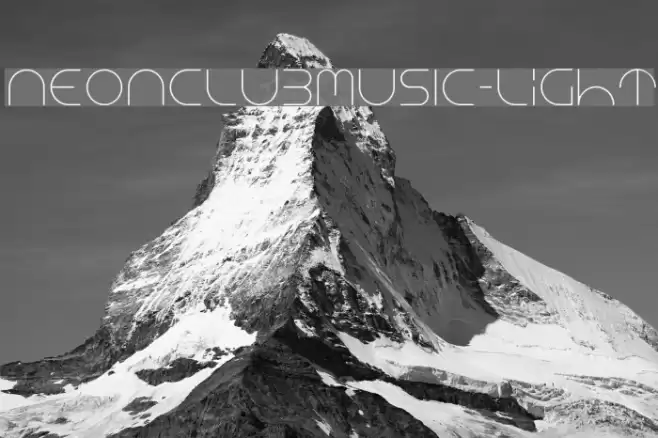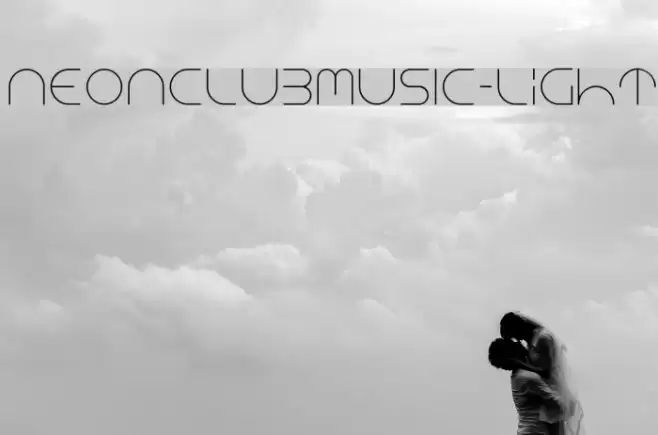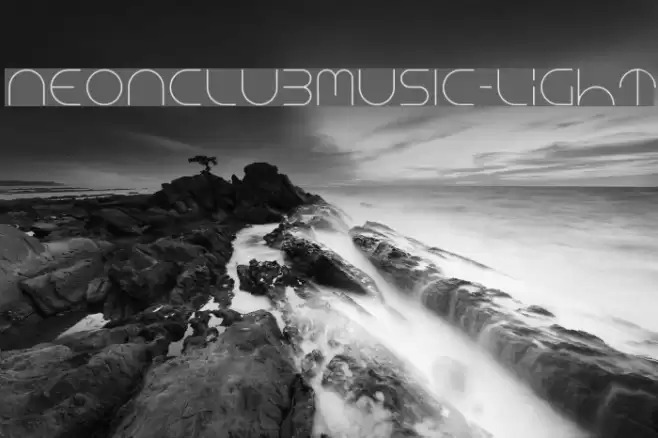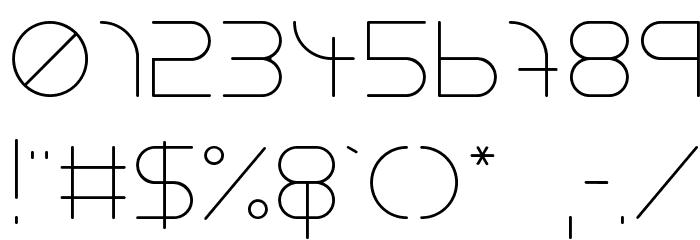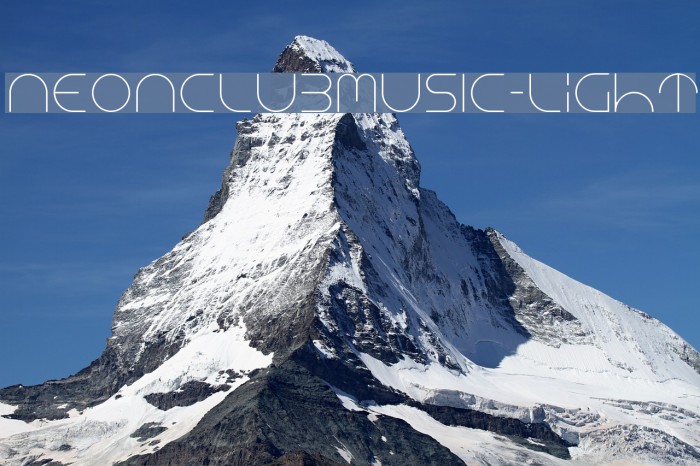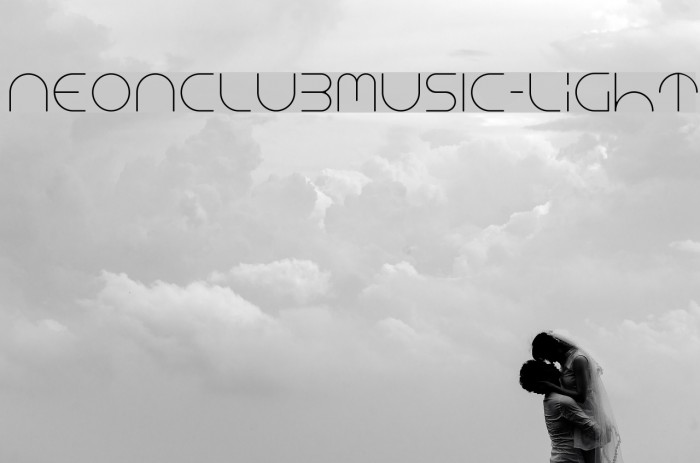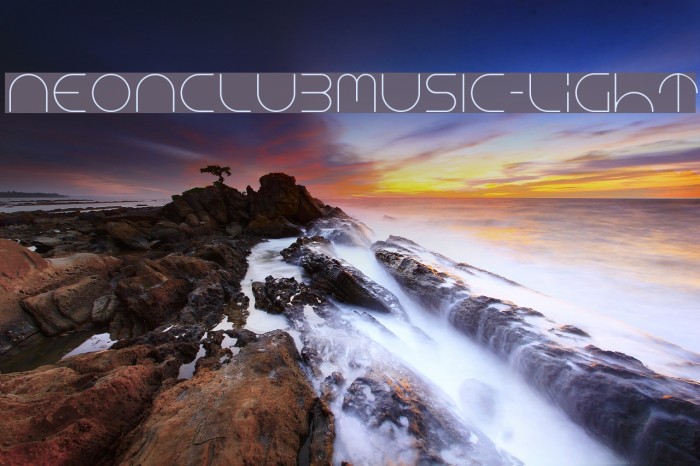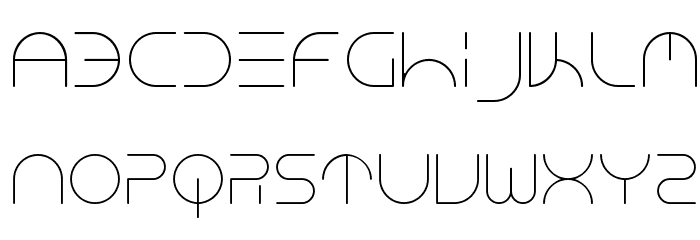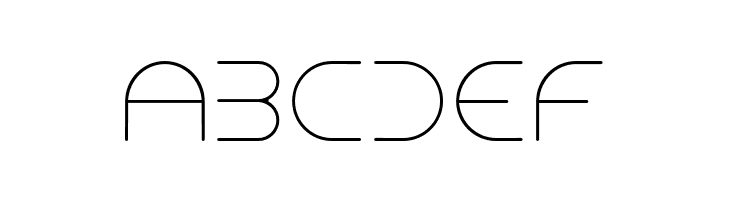
NEONCLUBMUSIC-Light Font
NEONCLUBMUSIC-Light Description
This font features a sleek, futuristic design with a minimalist aesthetic. The characters are composed of thin, continuous lines that create a sense of modernity and elegance. The uppercase and lowercase letters maintain a consistent style, with rounded edges and a geometric structure. Numbers and special characters follow the same design principles, ensuring uniformity across all glyphs. The overall appearance is clean and sophisticated, making it suitable for contemporary design projects.
A sleek, futuristic font with thin, continuous lines and a minimalist aesthetic from Uncategorized fonts.
- Proposed Projects: Ideal for modern branding, tech-related projects, digital media, and futuristic design themes.
- Use Case: Headlines, Logos, Digital media